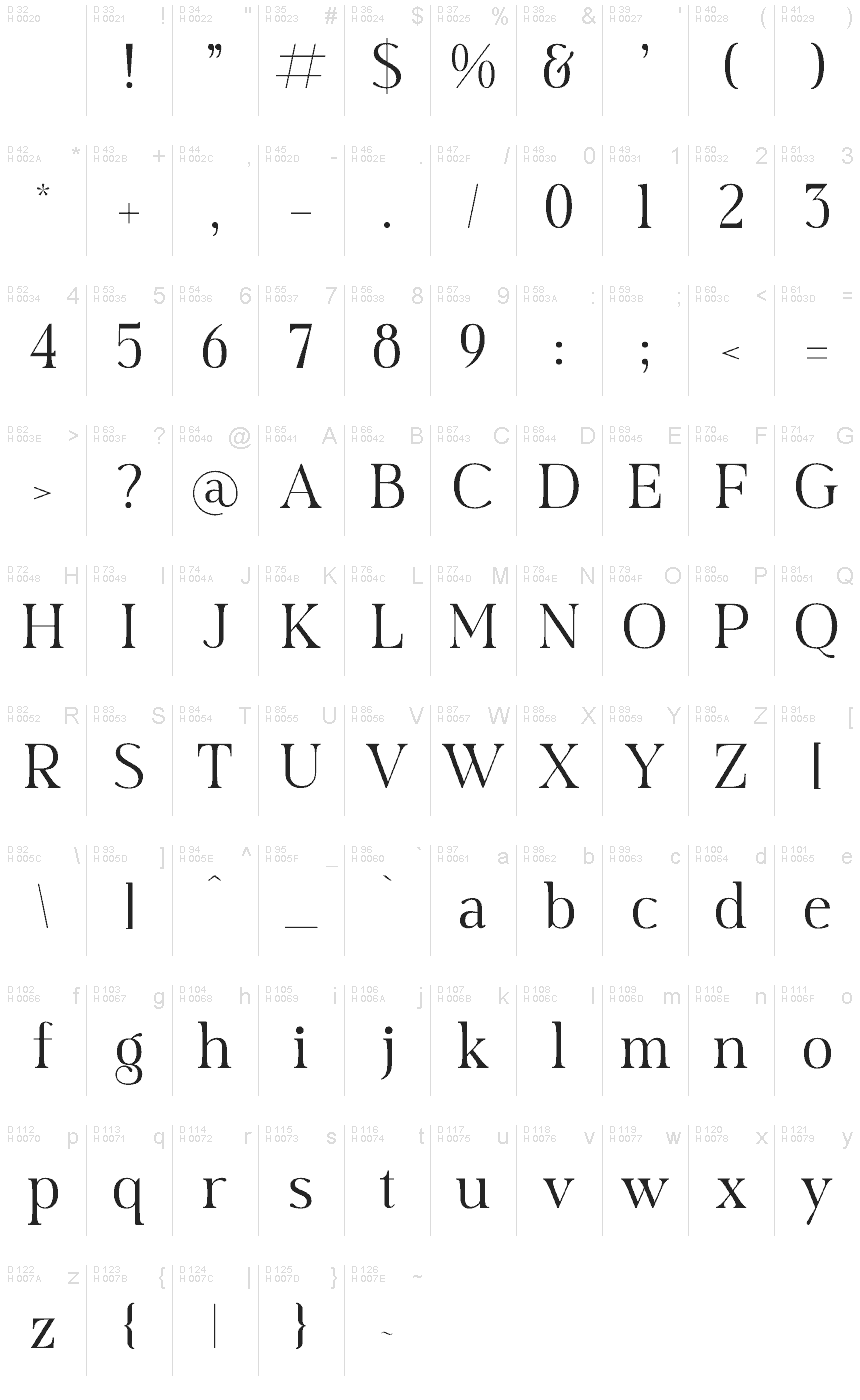
Milkade
Milkade font is an elegant serif typeface designed by Storytype Studio. Sophisticated and classic, this formal font displays a simple yet distinguished structure that mixes elegance and beauty. It carries the upscale vibe of great modern fonts while conserving the legibility associated with traditional typography.
When it comes to use cases; wedding invites, signature designs, branding projects, logo design, packaging designs and more would always benefit from Milkade’s presence. The free serif font fits editorial designs as well as social media posts and marketing materials like flyers and brochures.